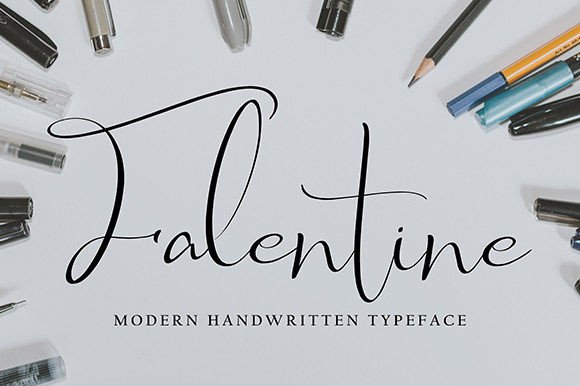
Falentine Font: The Perfect Choice for Elegant and Charming Designs
Are you a designer or crafter looking for a font that exudes charm and elegance? Look no further than Falentine Font. This beautiful handwritten font is perfect for adding a touch of sophistication to any design project. In this article, we’ll take a closer look at Falentine Font and explore its many uses, from wedding invitations to logos and business cards.
What is Falentine Font?
Falentine Font is a stunning handwritten font that feels equally charming and elegant. Its unique and flowing script makes it perfect for designs that require a personal touch. Whether you’re creating wedding invitations, greeting cards, or quotes, Falentine Font is sure to impress. Its elegant and refined appearance makes it an excellent choice for designs that require a high level of sophistication.
Uses of Falentine Font
Falentine Font is a versatile font that can be used in a variety of design projects. Here are some of the most popular uses of this beautiful font:
- Wedding Invitations: Falentine Font is a popular choice for wedding invitations due to its elegant and romantic appearance. It’s perfect for creating beautiful and memorable invitations that set the tone for the big day.
- Thank You Cards: Express your gratitude with style using Falentine Font on thank you cards. Its charming and elegant script makes it perfect for writing heartfelt messages.
- Quotes: Add a touch of sophistication to your quotes with Falentine Font. Its unique and flowing script makes it perfect for creating inspirational and motivational quotes.
- Greeting Cards: Falentine Font is a great choice for greeting cards, including birthday cards, Christmas cards, and more. Its elegant and refined appearance makes it perfect for creating beautiful and memorable cards.
- Logos: Falentine Font can also be used to create stunning logos for businesses and brands. Its unique and flowing script makes it perfect for creating memorable and elegant logos.
- Business Cards: Make a great impression with Falentine Font on your business cards. Its elegant and refined appearance makes it perfect for creating professional and memorable business cards.
Why Choose Falentine Font?
There are many reasons why Falentine Font is a popular choice among designers and crafters. Here are some of the benefits of using this beautiful font:
- Elegant and Charming: Falentine Font has an elegant and charming appearance that makes it perfect for designs that require a high level of sophistication.
- Versatile: Falentine Font can be used in a variety of design projects, from wedding invitations to logos and business cards.
- Easy to Read: Falentine Font is easy to read, making it perfect for designs that require a clear and concise message.
- Unique: Falentine Font has a unique and flowing script that makes it stand out from other fonts.
Tips for Using Falentine Font
Here are some tips for using Falentine Font in your design projects:
- Use it Sparingly: Falentine Font is a elegant and refined font, so use it sparingly to avoid overwhelming your design.
- Pair it with Other Fonts: Falentine Font can be paired with other fonts to create a unique and interesting design.
- Experiment with Colors: Falentine Font looks great in a variety of colors, so experiment with different colors to find the perfect one for your design.
Falentine Font is a beautiful and elegant font that is perfect for designers and crafters looking to add a touch of sophistication to their design projects. Its unique and flowing script makes it perfect for wedding invitations, thank you cards, quotes, greeting cards, logos, business cards, and more. With its elegant and refined appearance, Falentine Font is sure to impress. So why not give it a try and see how it can elevate your designs?